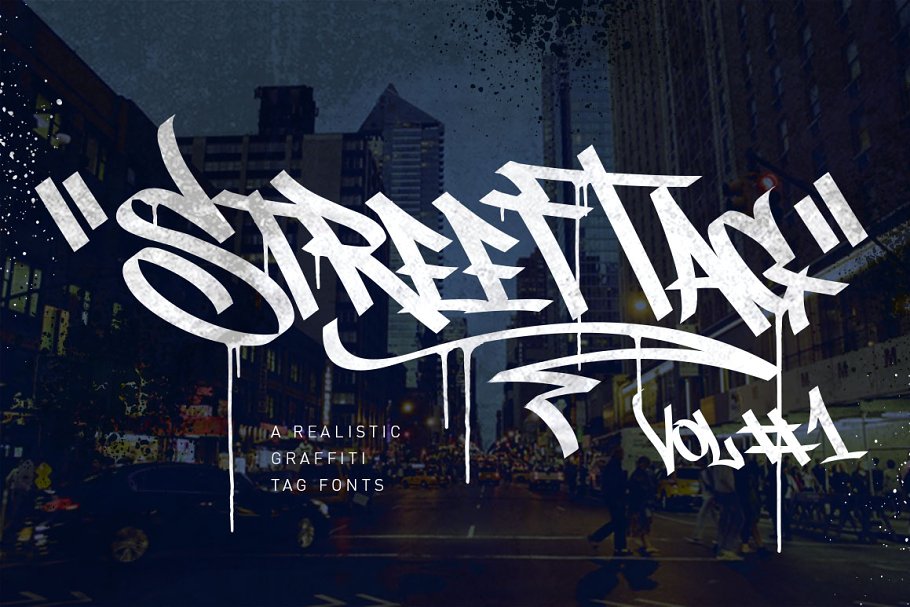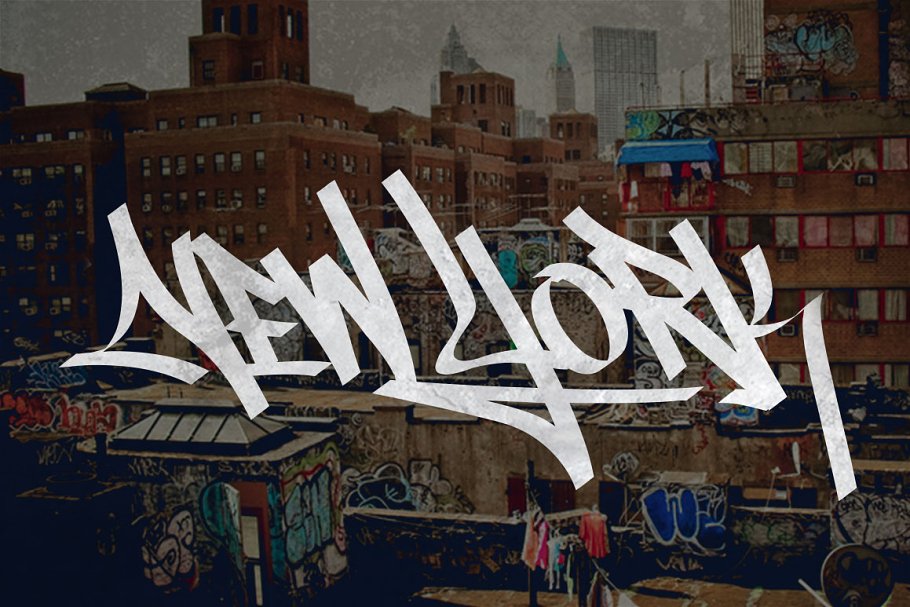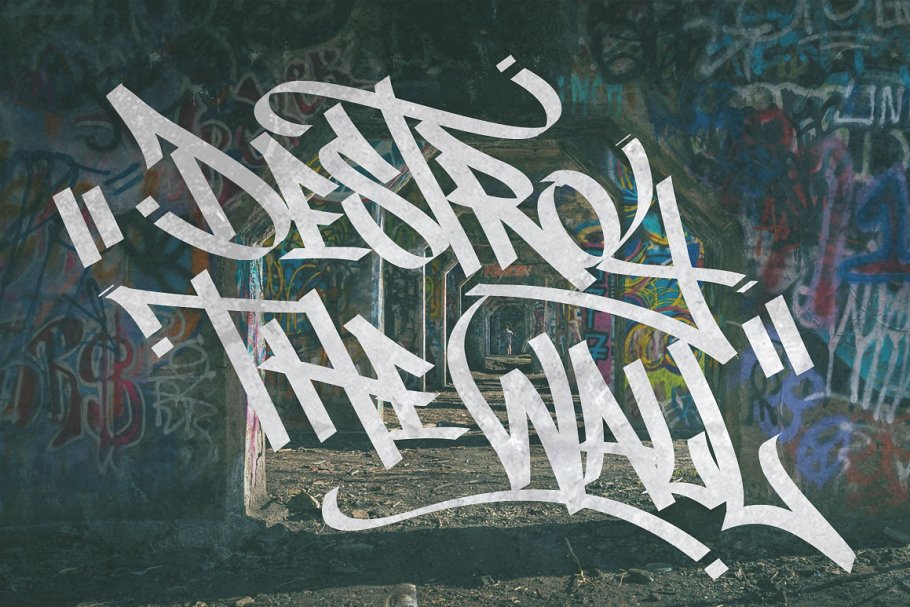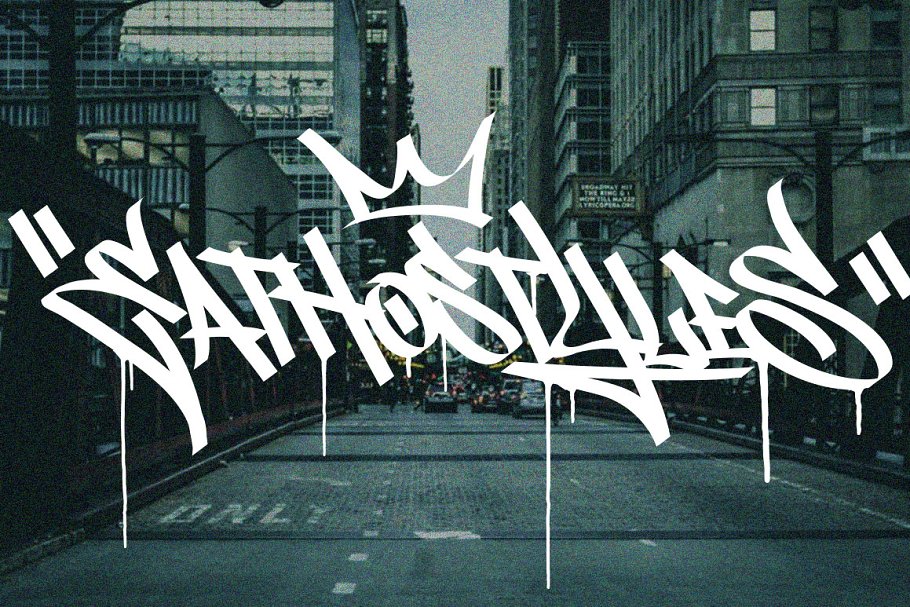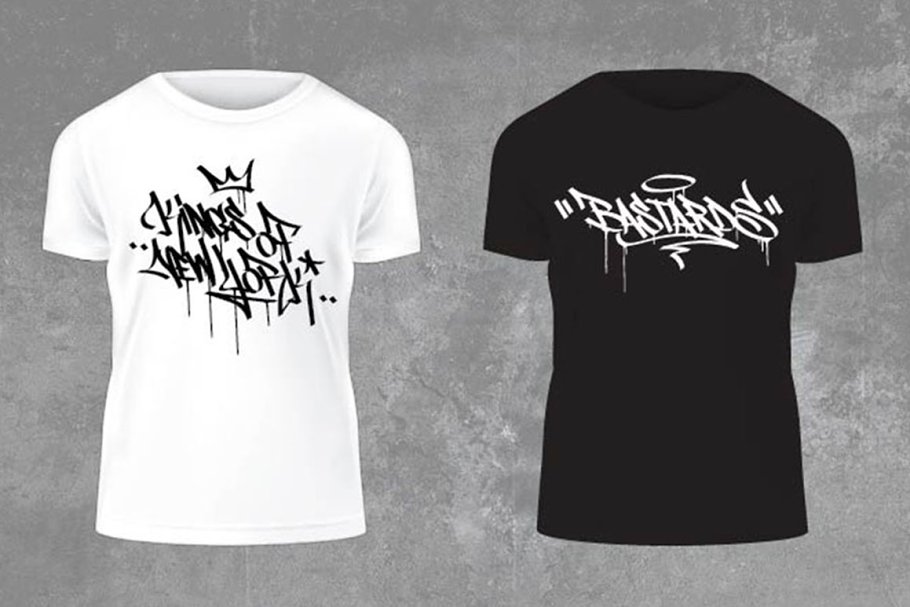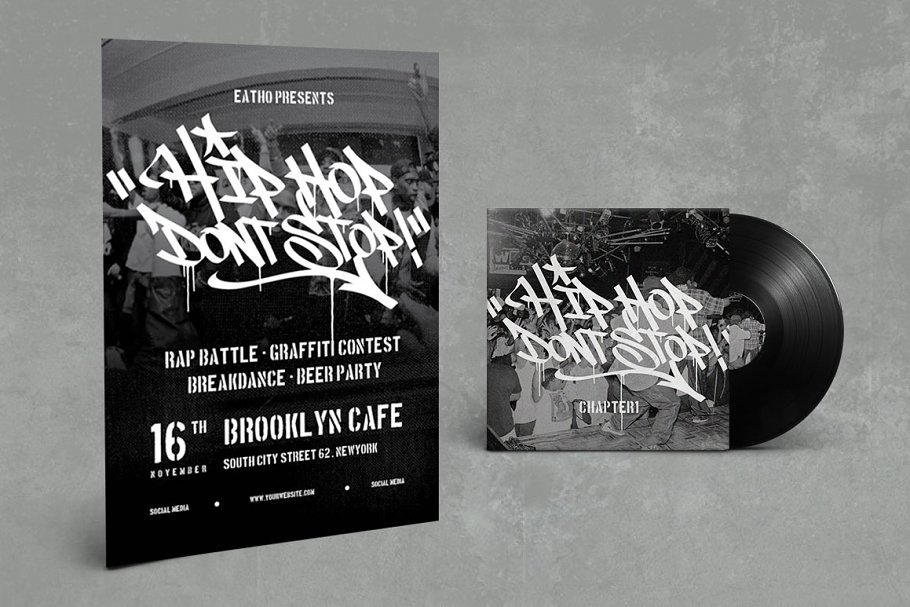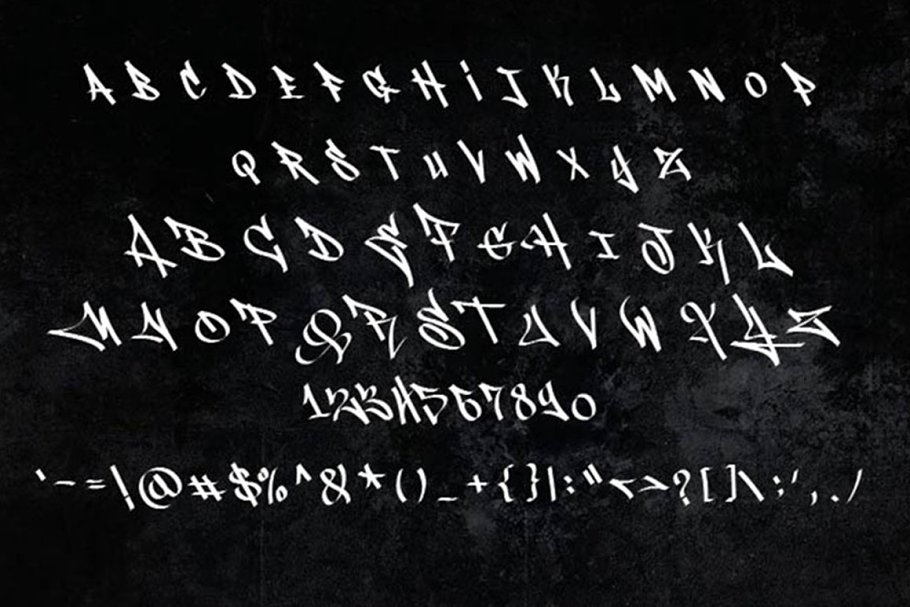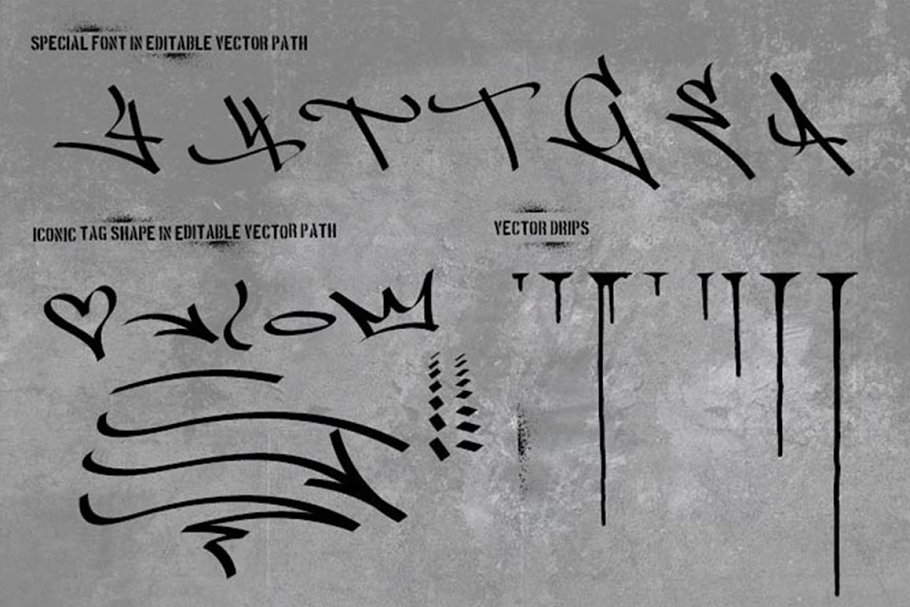
About the Street Tag Vol Font
UPDATE!!Already fix the Bonus files!!Street Tag vol1 is inspired from graffiti tag in urban areas in Jakarta, i also draw graffiti, tag and throw up since high school, This is originally my style, inspired from some my favourite graffiti artist, my tag style is not so tidy and i think you guys should adjust the kerning manually again, because it’s impossible to adjust them to be tidy
You’ll also get some bonus here in vector format, you’ll get outlined typeface, special character (drips, line, another tag symbol etc) and Hip hop poster design bonus, i also create special letter G,“Y” and “T” in vector base, so you can edit the path as you like, combine with the original font, you can see the sample